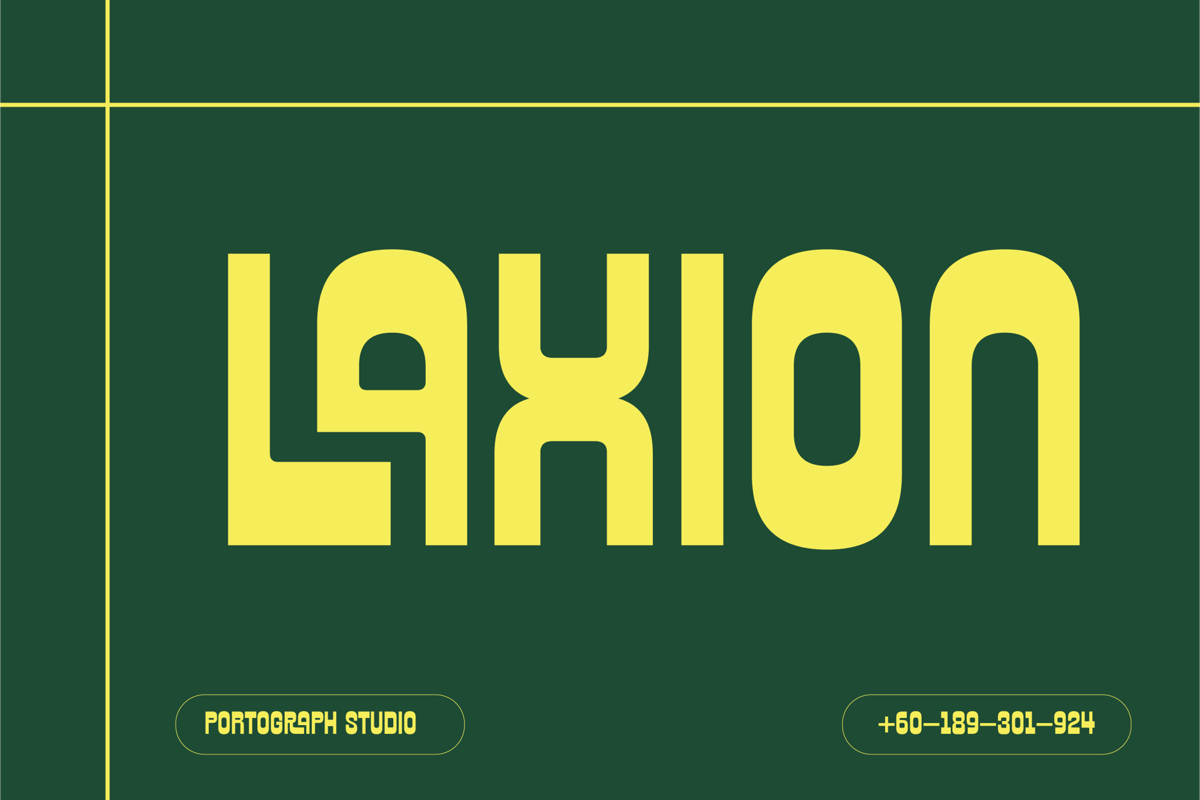
Laxion - Sports Font
Make a bold statement with Laxion – the geometric display font that commands attention with retro-futuristic confidence. This striking typeface combines rounded shapes, smooth curves, and solid letterforms to create an eye-catching presence that's perfect for contemporary design projects. Laxion's clean yet playful construction bridges modern minimalism with vintage-inspired aesthetics, making it incredibly versatile for any creative application. Ideal for branding, logos, posters, headlines, pa...